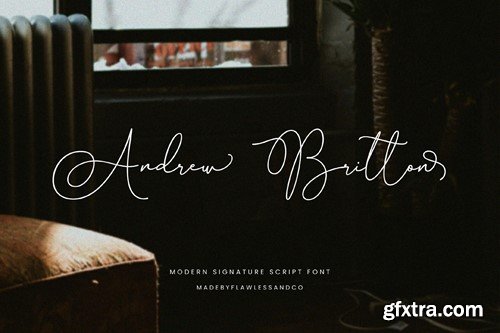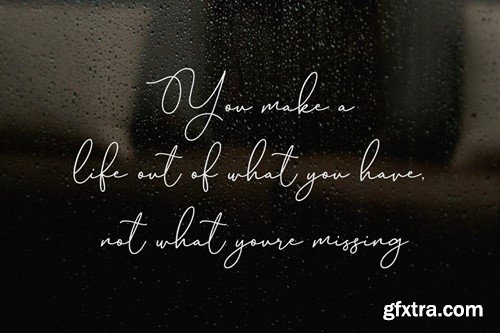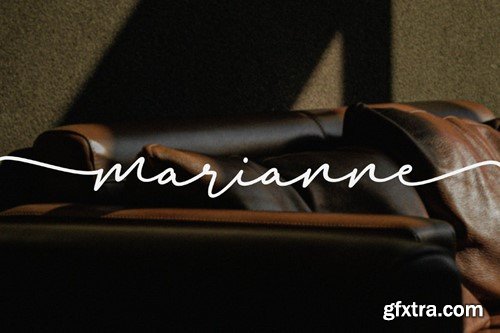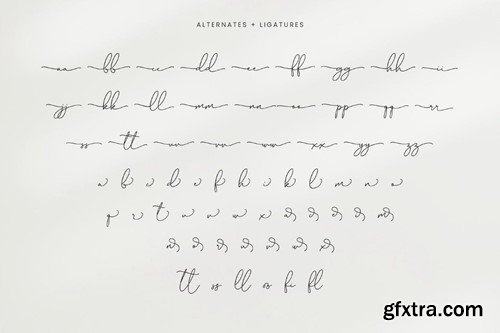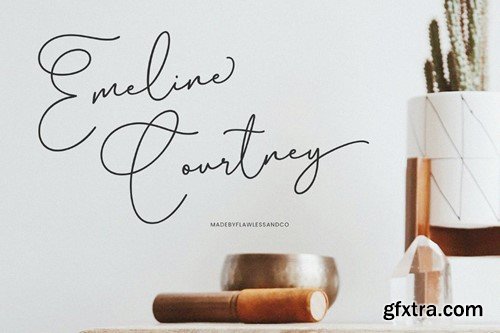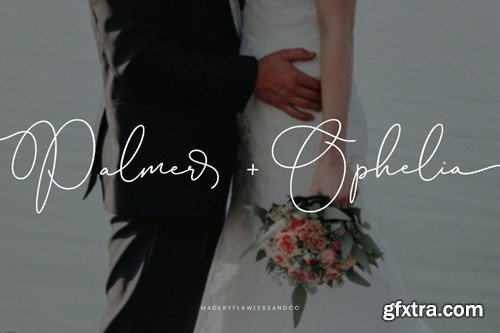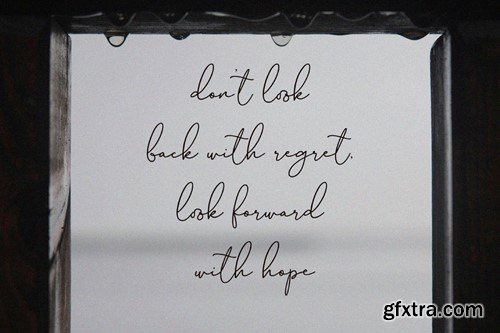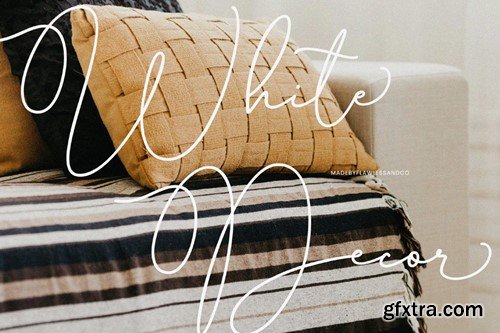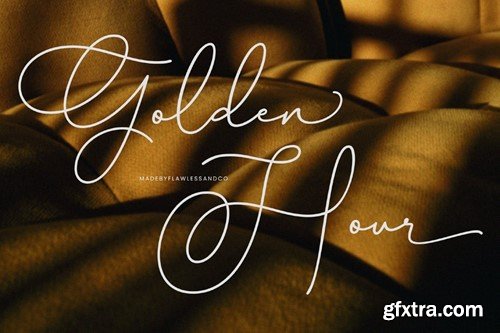
Andrew Britton - Script Wedding Font, signature Font, Calligraphy Font, Wedding Font, Script Font, Invitation Font, Modern Font, Display Font, Canva Font, Cricut Font, Procreate Font, Cursive Font, Branding Font, Logo Font Introducing Andrew Britton, a captivating signature script font meticulously crafted to exude elegance and timeless beauty, making it the perfect choice for your wedding invitations, stationery, and other special occasion materials. Inspired by the graceful flow of calligraphy, Andrew Britton adds a touch of sophistication and romance to your wedding designs, capturing the essence of your love story in a way that will leave a lasting impression. Included: Features : Multilingual Uppercase alphabet A-Z Lowercase alphabet a-z Numbers 0-9 Some punctuation NOTE: For all the characters are also available, accessible in the Adobe Illustrator Glyphs Panel, or in Adobe Photoshop Character Open Type Panel. If you need help, just write me! Thanks so much for checking out my shop! ----------------------------------------------- HOW TO USE FONT : (connected letters, swirls, heart, swashes, diamond) for the first, install the .otf file and open fontbook/character map, find the font and you can copy and paste the heart letters from fontbook/character map to your text. Thanks, Flawless and co.